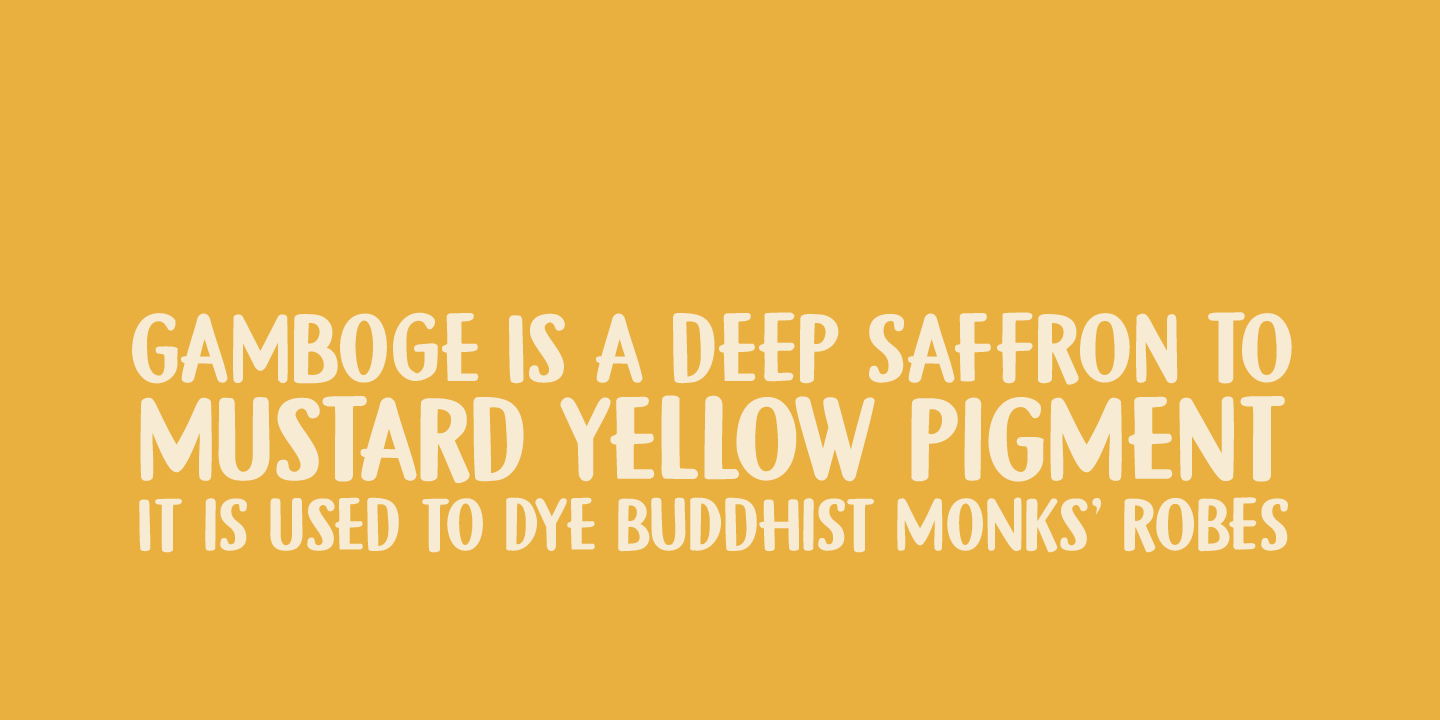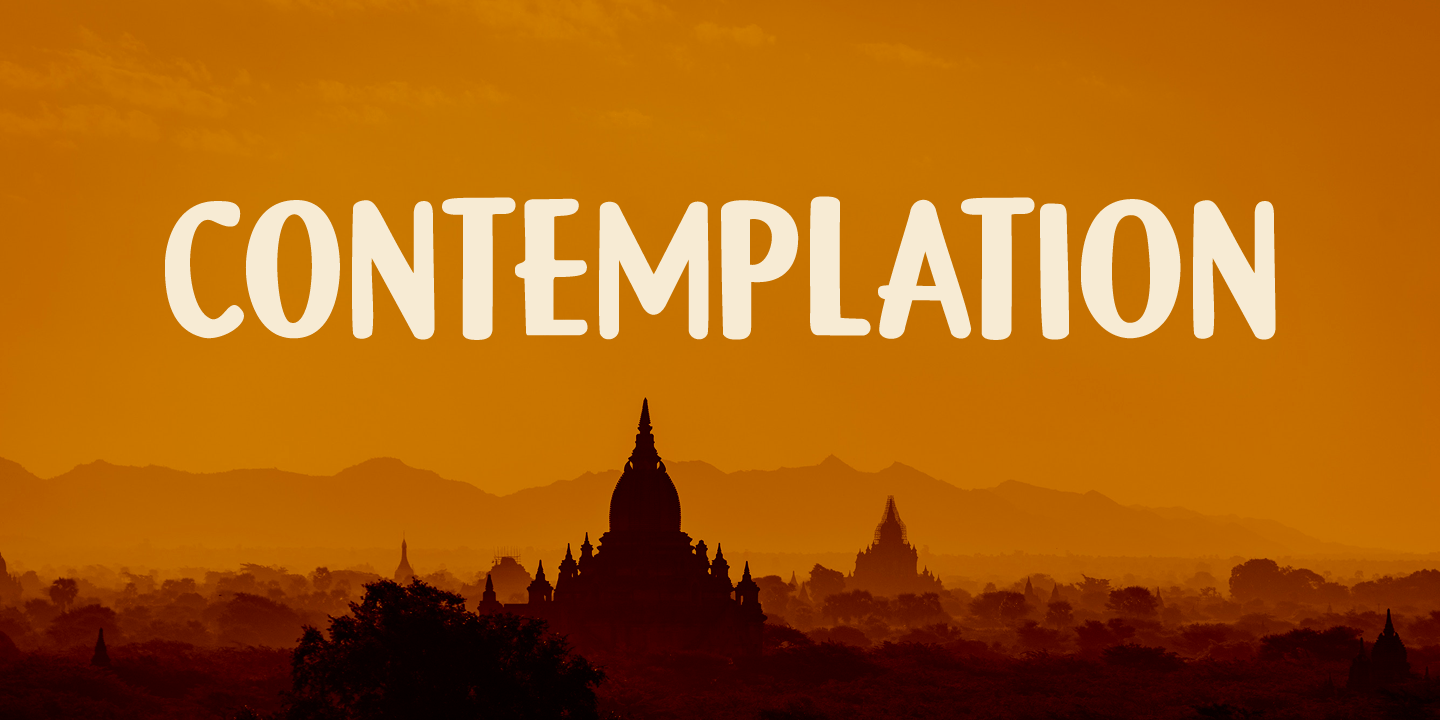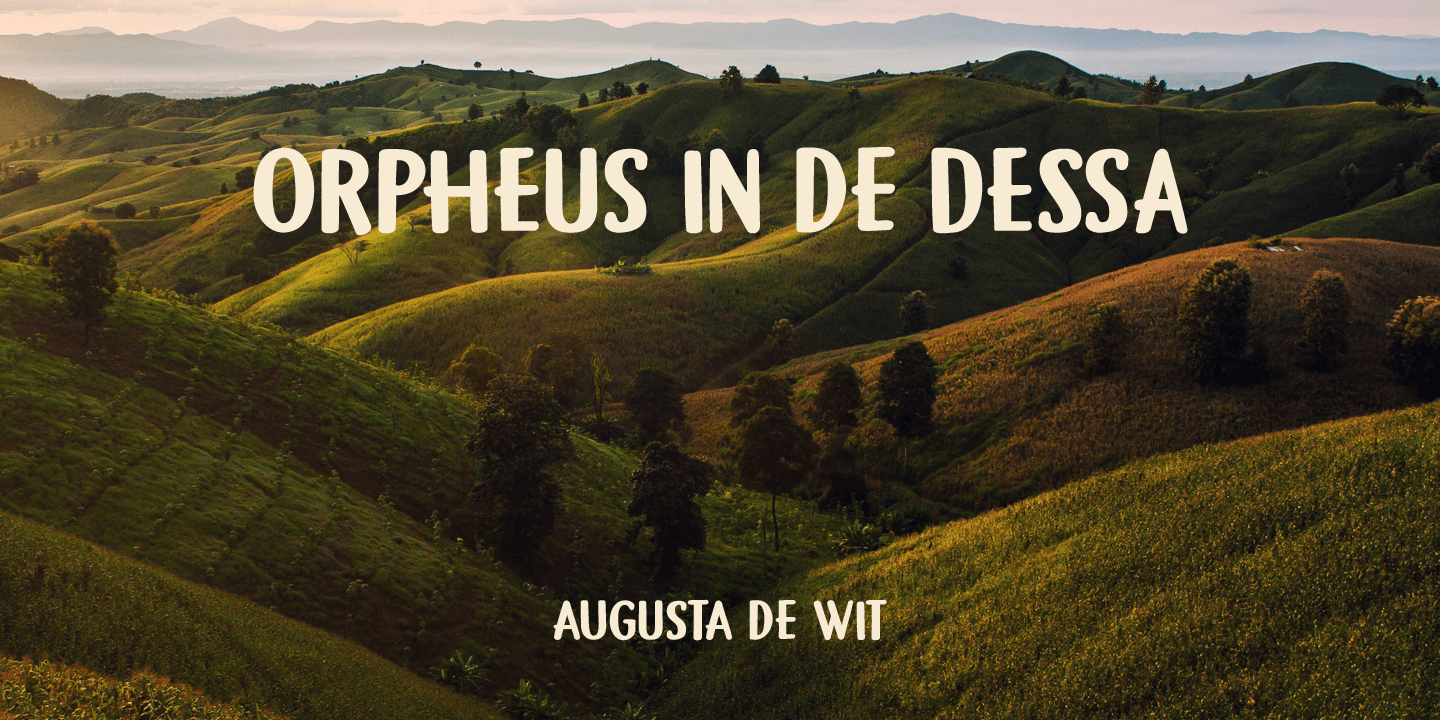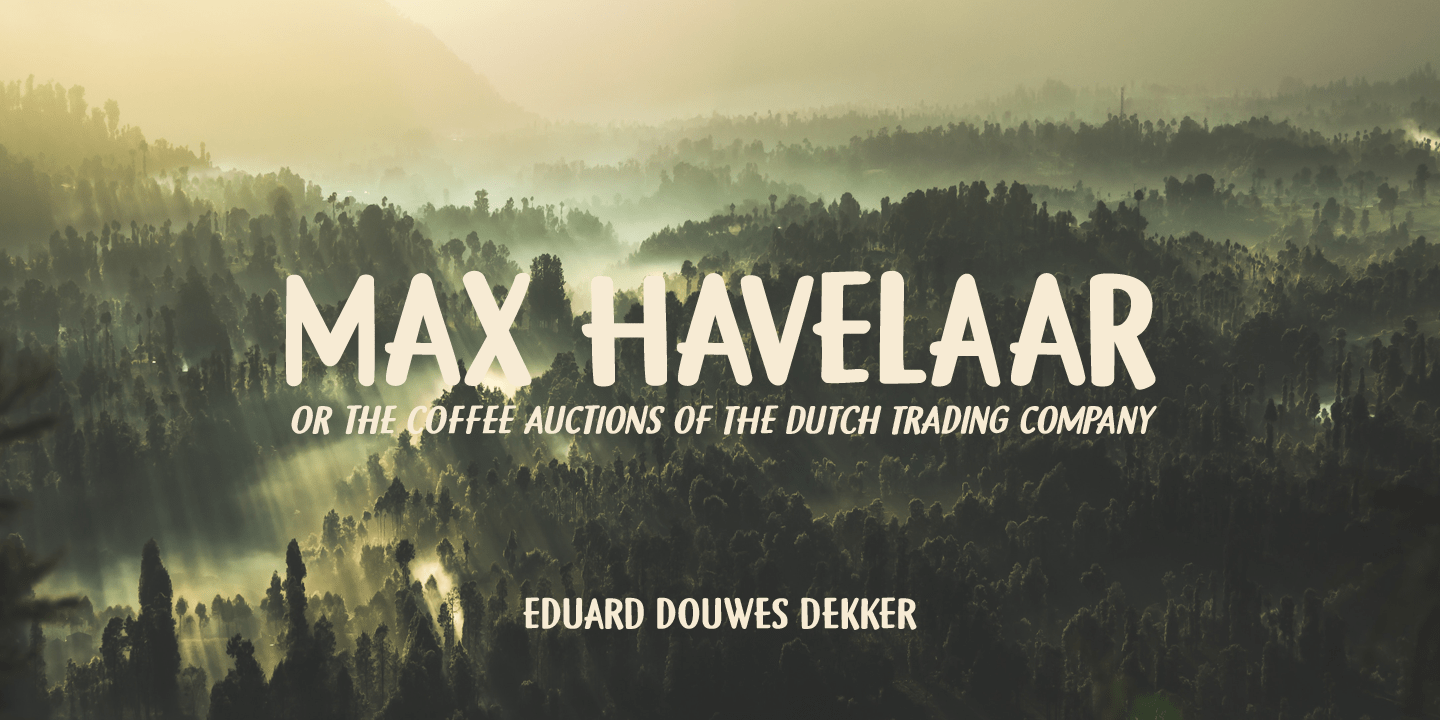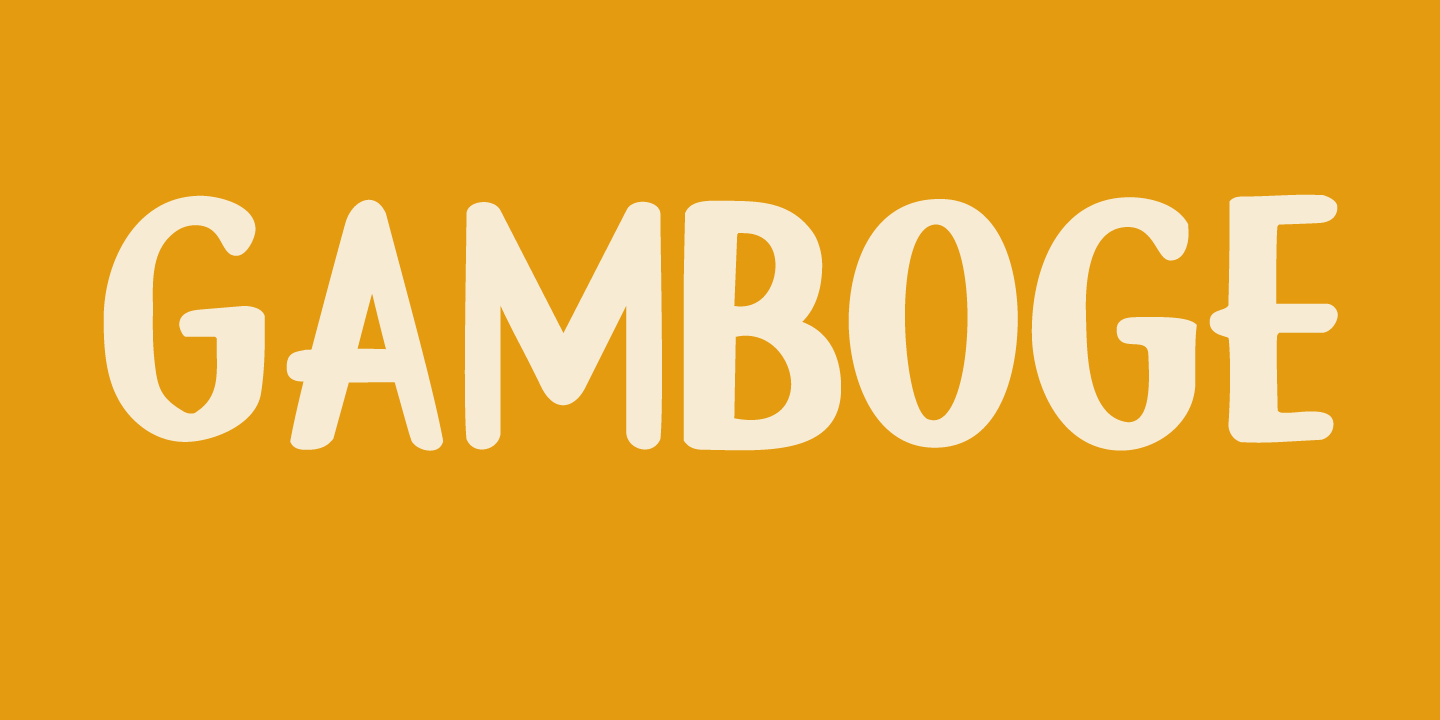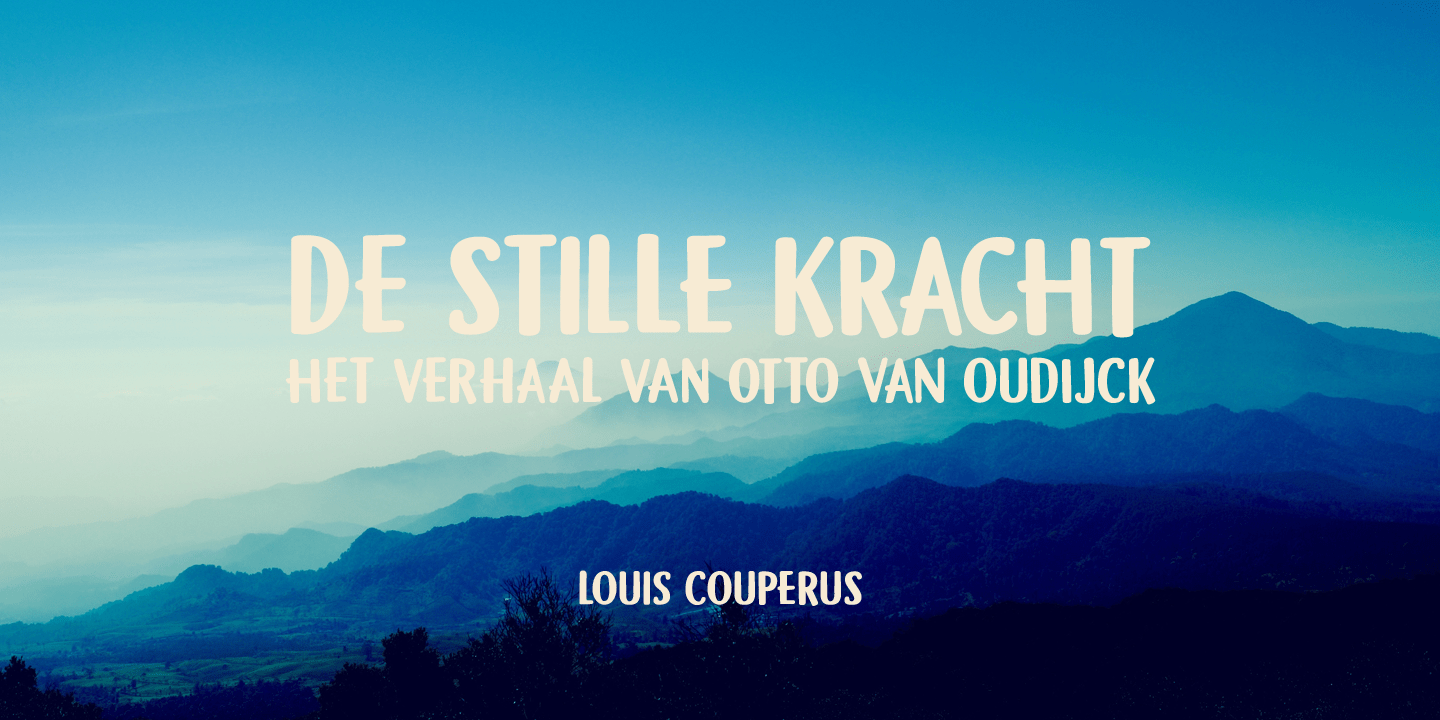
Gamboge
About Gamboge
Gamboge is a deep saffron to mustard yellow pigment which is extracted from a tree. Its name comes from gambogium, the latin word for the pigment. Gambogia font is a beautiful all caps typeface with a pre-war feeling to it. Upper and lower case differ…